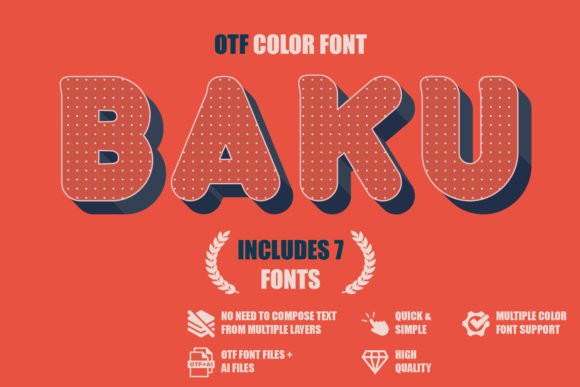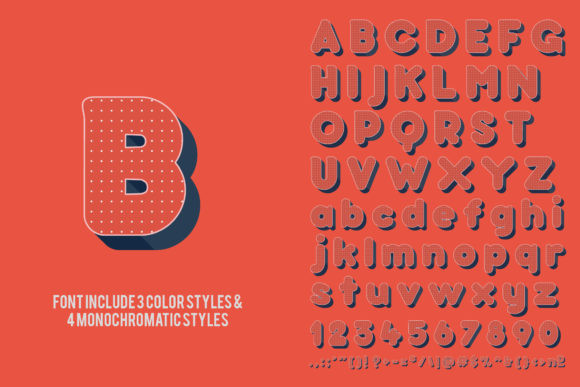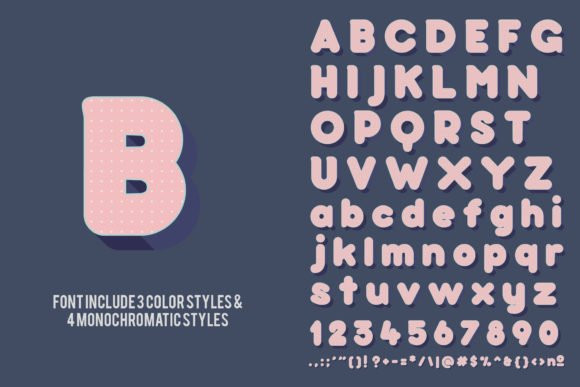
Baku Font
Baku is a cool, bold and thick lettered color font. Whatever the topic, this font will be a wonderful asset to your font library, as it has the potential to enhance any creation.